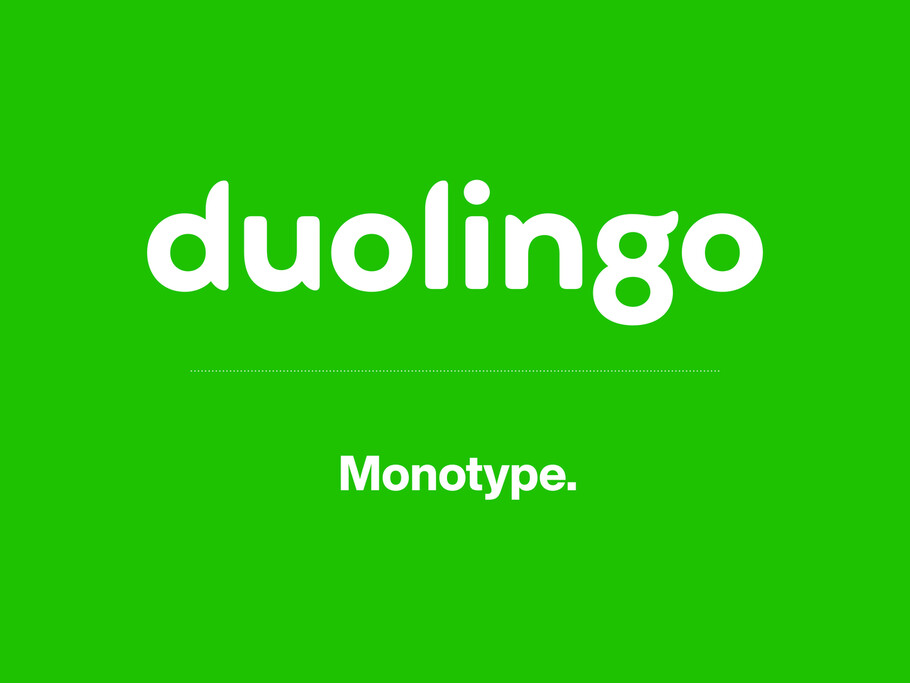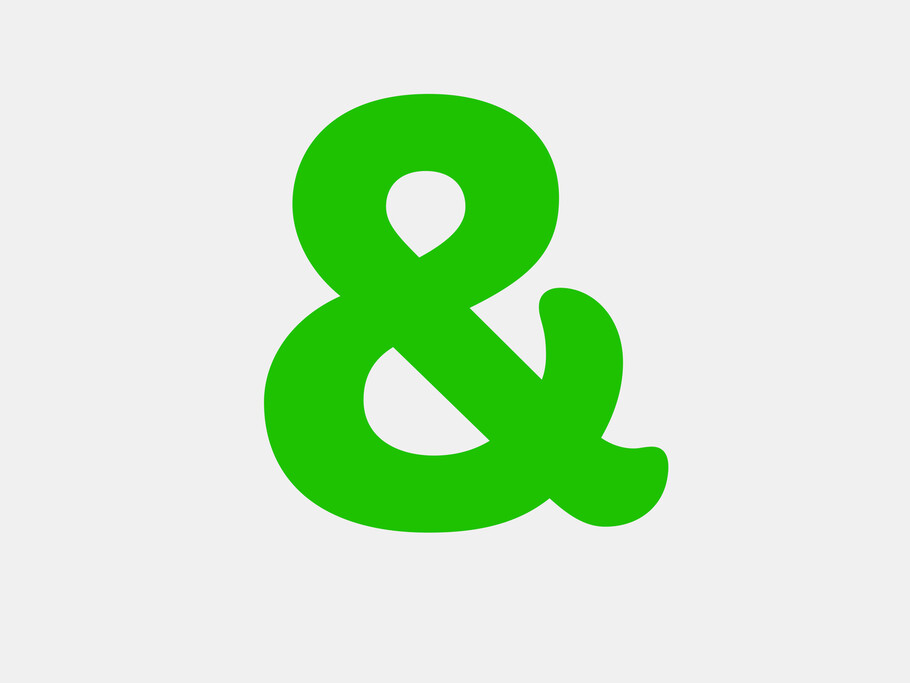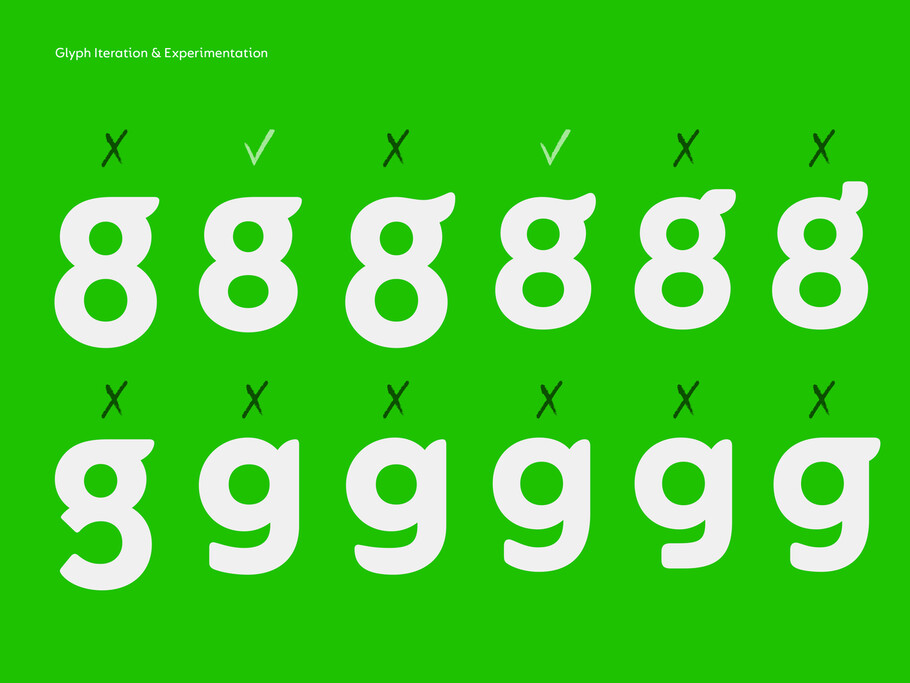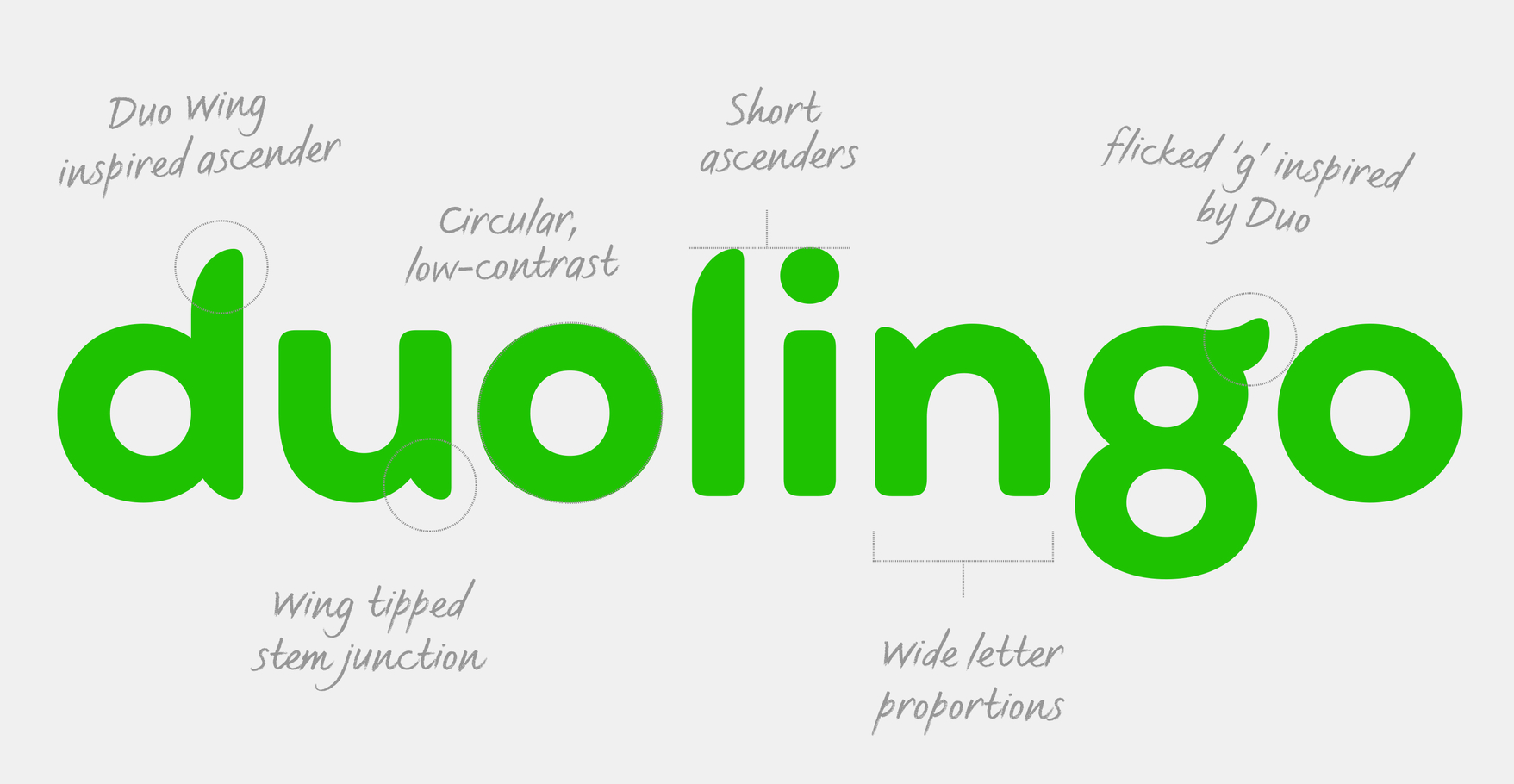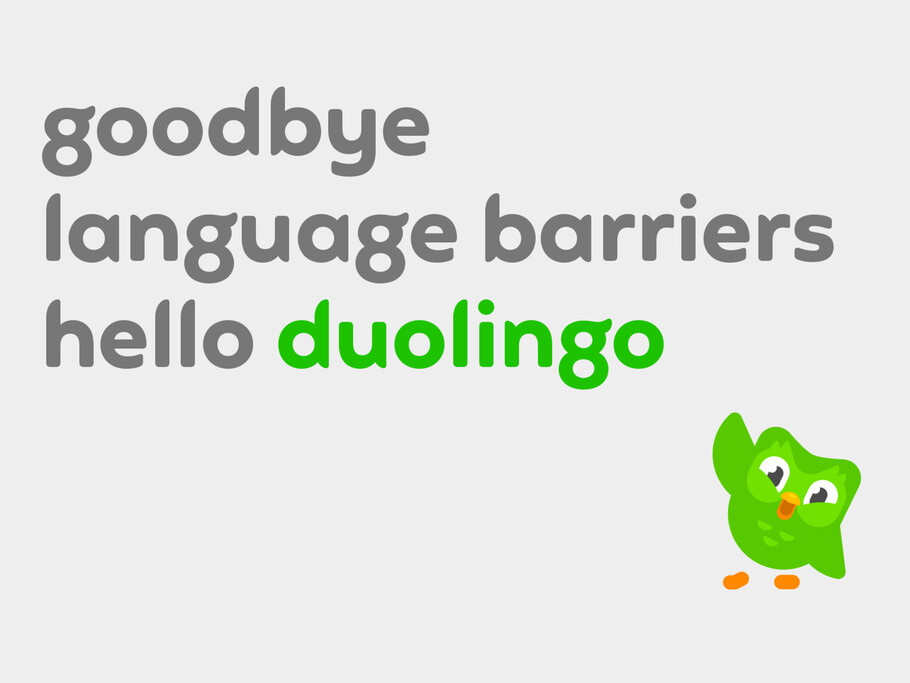
London based brand consultants johnson banks came to us to help finesse the favoured concept fine tune it into a master logo and then extrapolate it into the design of a new custom display typeface one that aims to become synonymous with the brand and create a distinct.
Duolingo font app. Dengan web atau aplikasi seluler gratis kami dan beberapa menit saja sehari setiap orang bisa duolingo. Taking inspiration from duolingos iconic owl mascot duo agency johnson banks had begun to explore how the shapes inherent in the mascots design could influence the typography. Memrise offers a much larger selection of over 100 languages to choose from and allows users to learn in a fun game like format that emulates titles such as space invaders. Duolingo the hugely popular language learning web app has refreshed its brand identity for their 300 million plus users.
Brand guidelines duolingo. The stylish substitute is much clearer. Pelajari 30 bahasa secara online dalam bentuk pelajaran berbasis sains sekali gigit. Duolingo custom font feather is inspired by their owl mascot duo.
Though duolingo is a great app it doesnt go as deep into language learning as a few competitors. Duolingo the hugely popular language learning web app were refreshing their brand identity and johnson banks came to us to help finesse the favoured concept. Their original font is very difficult for beginners. I used the stylish work around on my laptop but still havent found a solution for android.
Learn 30 languages online with bite size lessons based on science. It would certainly be easier if duolingo helped us out. Together we began to look at how to incorporate the shape and spirit of an owls wing into a unique custom font. London based brand consultants johnson banks came to us to help finesse the favoured concept fine tune it into a master logo and then extrapolate it into the design of a new custom display typeface one that aims to become synonymous with the brand and create a distinct.
Our brief was to fine tune it into a master logo and then extrapolate it into the design of a new.